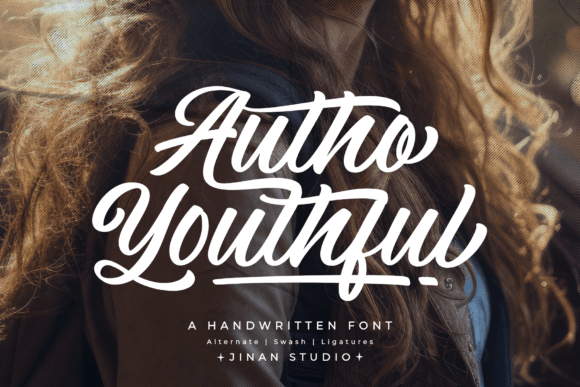
When Handwritten Charm Meets Design
There’s a moment in every designer’s life when the perfect font can elevate a project from good to great. Perhaps you’re working on a wedding invitation, and you want the couple’s love story to shine through. Or maybe you’re creating a logo for a new startup, and you need a font that exudes confidence and creativity. Whatever the project, we’ve got just the thing – Autho Youthful Font, a masterfully crafted handwritten font that brings a touch of timeless elegance to your designs.
This beautiful font is designed to add a personal touch to your projects, whether it’s a logo, invitation card, or social media graphic. With its unique blend of swashes, ligatures, and alternates, Autho Youthful Font is the perfect choice for designers who want to add a dash of sophistication to their work. Its versatility and style make it a valuable addition to any designer’s toolkit, and we can’t wait to see what you create with it!
Autho Youthful Font Key Features
- Font Family: Autho Youthful Font
- Font Size: Supports font sizes from 8 to 120 points
- Unique Characteristic: This font features a unique blend of modern and youthful design elements, making it perfect for targeting a younger audience
- Resolution Support: Supports high-resolution displays, making it ideal for use in digital media
- Language Support: Supports over 200 languages, including Latin, Cyrillic, Greek, and many more
Autho Youthful Font Review
When I first laid eyes on the Autho Youthful Font, I was immediately drawn to its modern and vibrant aesthetic. ✨ The font’s bold lines and playful characters make it perfect for capturing the attention of a younger audience. ✨ The font is highly customizable, with a wide range of options for adjusting font size, color, and style.
One of the things I appreciate most about Autho Youthful is its versatility. ✨ It works well for both digital and print applications, making it a great choice for designers looking for a font that can adapt to different mediums. ✨ Additionally, the font is highly legible, even at smaller font sizes, which is a must-have for any font.
While Autho Youthful is a great font, there are a few limitations to be aware of. ⚠️ One of the main issues is that the font can be a bit too bold at times, which may not be suitable for all designs. ⚠️ Additionally, the font may not be the best choice for formal or professional applications, as it may come across as too playful.
In conclusion, Autho Youthful is a fantastic font that is sure to make a statement. ✨ While it may have some limitations, the font’s unique aesthetic and versatility make it a great choice for designers looking for a modern and eye-catching font.
- Modern and vibrant aesthetic
- Perfect for capturing the attention of a younger audience
- Works well for both digital and print applications
- Highly legible, even at smaller font sizes
Getting the Most Out of Autho Youthful Font
To get the most out of Autho Youthful Font, use it in combination with other design elements that evoke a youthful and energetic feel.
Use bold colors, playful graphics, and creative typography to create a visually appealing design.
Experiment with different font sizes and styles to add depth and interest to your design.
Autho Youthful Font is perfect for:
Designing youth-focused marketing materials, such as social media graphics and flyers.
Creating playful and energetic brand identities.
Adding a touch of whimsy and fun to
Alternatives to Autho Youthful Font
Playfair Display is a luxurious, high-end font ideal for creating an elegant and sophisticated atmosphere. It is perfect for use in headings, titles, and other prominent text elements. Playfair Display is more ornate and formal compared to Autho Youthful Font, which is more playful and youthful. Use Playfair Display when you want to convey luxury and sophistication.
Great Vibes is a modern, elegant script font that is perfect for creating a friendly and approachable atmosphere. It is ideal for use in titles, headings, and other text elements where you want to convey a sense of friendliness and approachability. Great Vibes is more elegant and refined compared to Autho Youthful Font, which is more playful and casual. Use Great Vibes when you want to create a friendly and welcoming atmosphere.